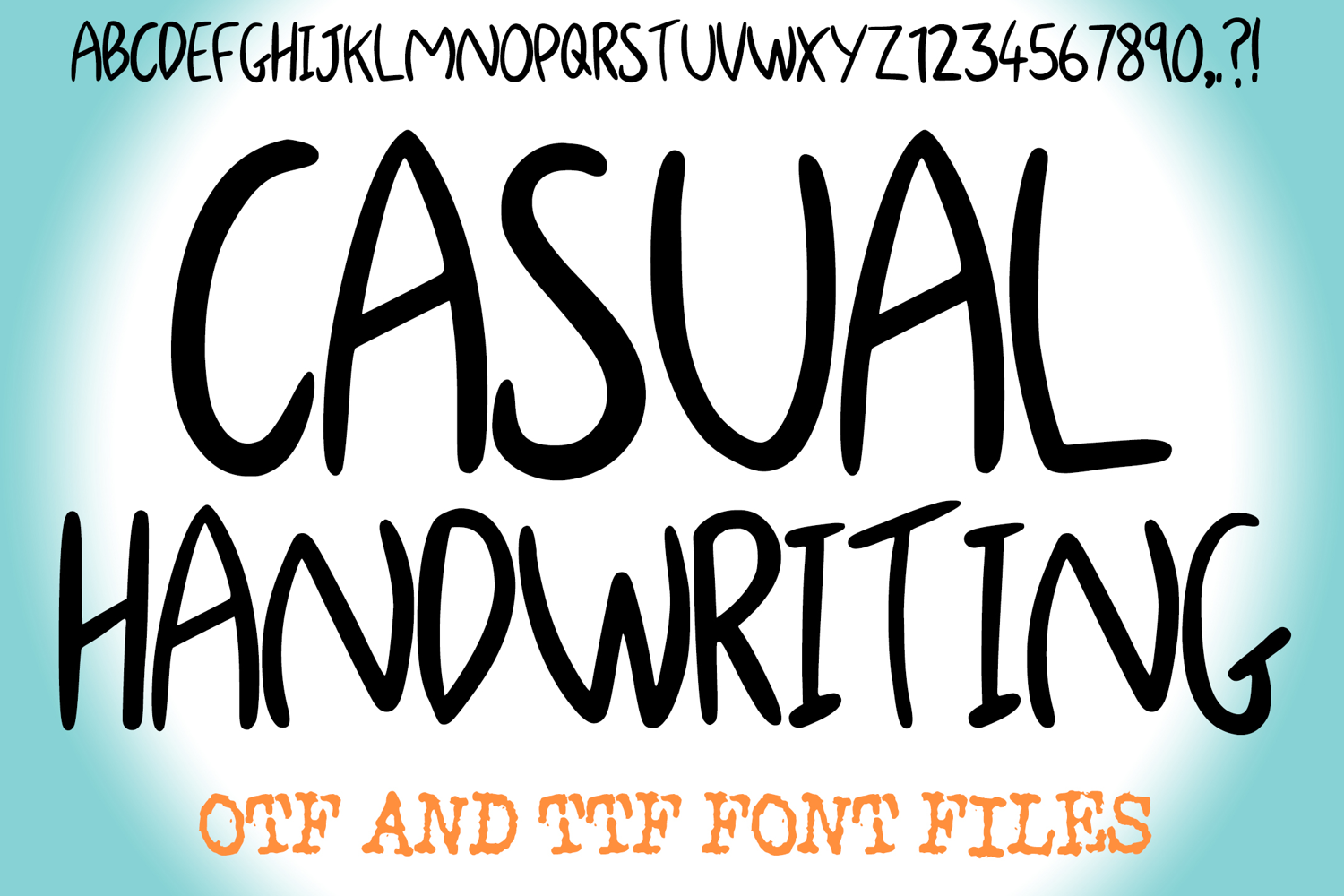
Casual Handwriting Everyday Lettering ABC Font Typeface OTF
Infuse your designs with an effortless charm and genuine warmth using Casual Handwriting Font! This wonderfully approachable typeface perfectly captures the spontaneous, relaxed feel of neat, everyday writing. It's more than just a font; it's an instant dose of individuality, designed to bring a unique, inviting, and human touch to any creative project.
Each character in Casual Handwriting Font is crafted with a clear, fluid stroke and a charmingly natural, hand-drawn quality, as if quickly jotted down with a favorite pen. Its informal yet exceptionally legible forms make it an ideal choice for unique branding, social media posts, journal layouts, casual invitations, blog graphics, or any design calling for a unique blend of simplicity and approachability.
Whether you're creating engaging content, adding a custom feel to digital products, crafting cheerful messages, or printable materials, this font will bring an undeniable sense of fun, originality, and a handmade aesthetic to your work. Its clean yet playful lines ensure readability while delivering a memorable visual experience.
If you're looking to infuse your designs with a sense of authentic personality, charming simplicity, and an undeniable touch of individuality, Casual Handwriting Font is your ultimate tool. Grab your digital pen and let your ideas flow!